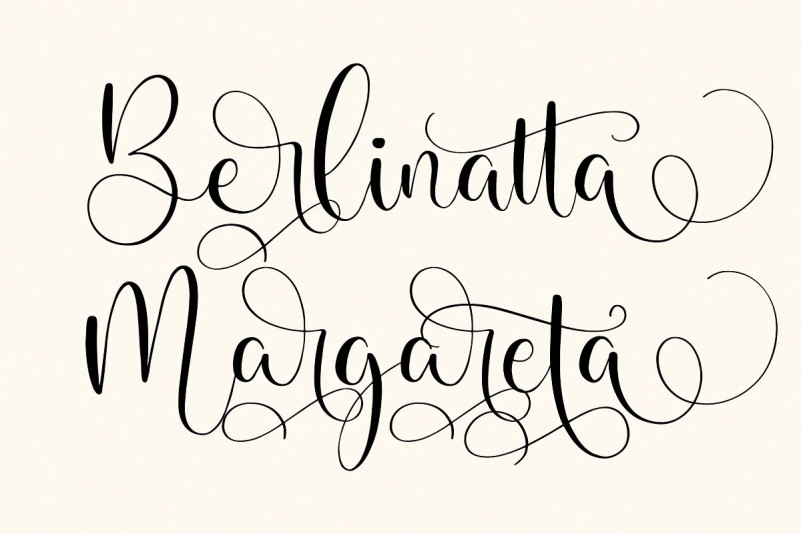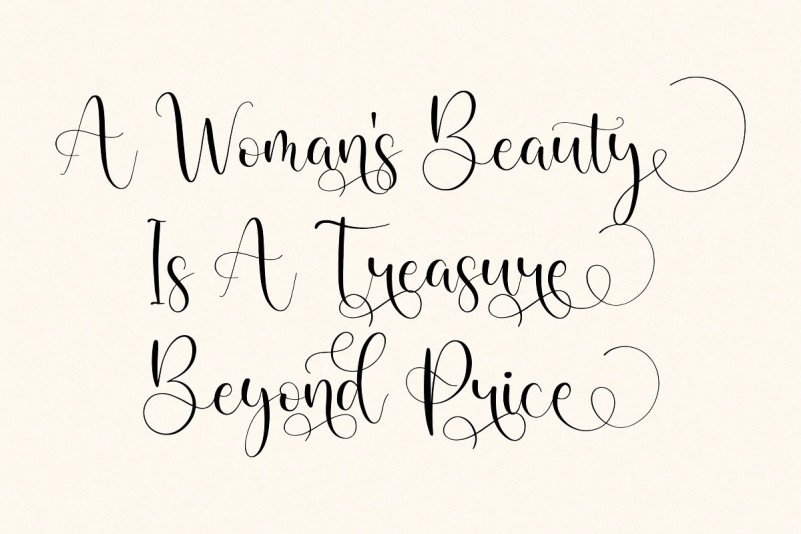
Spirit Typeface
Spirit Script Font is a delicate, refined script font that emanates sophistication and elegance. Its stylish alternates and ligatures make this font the perfect match for any project.